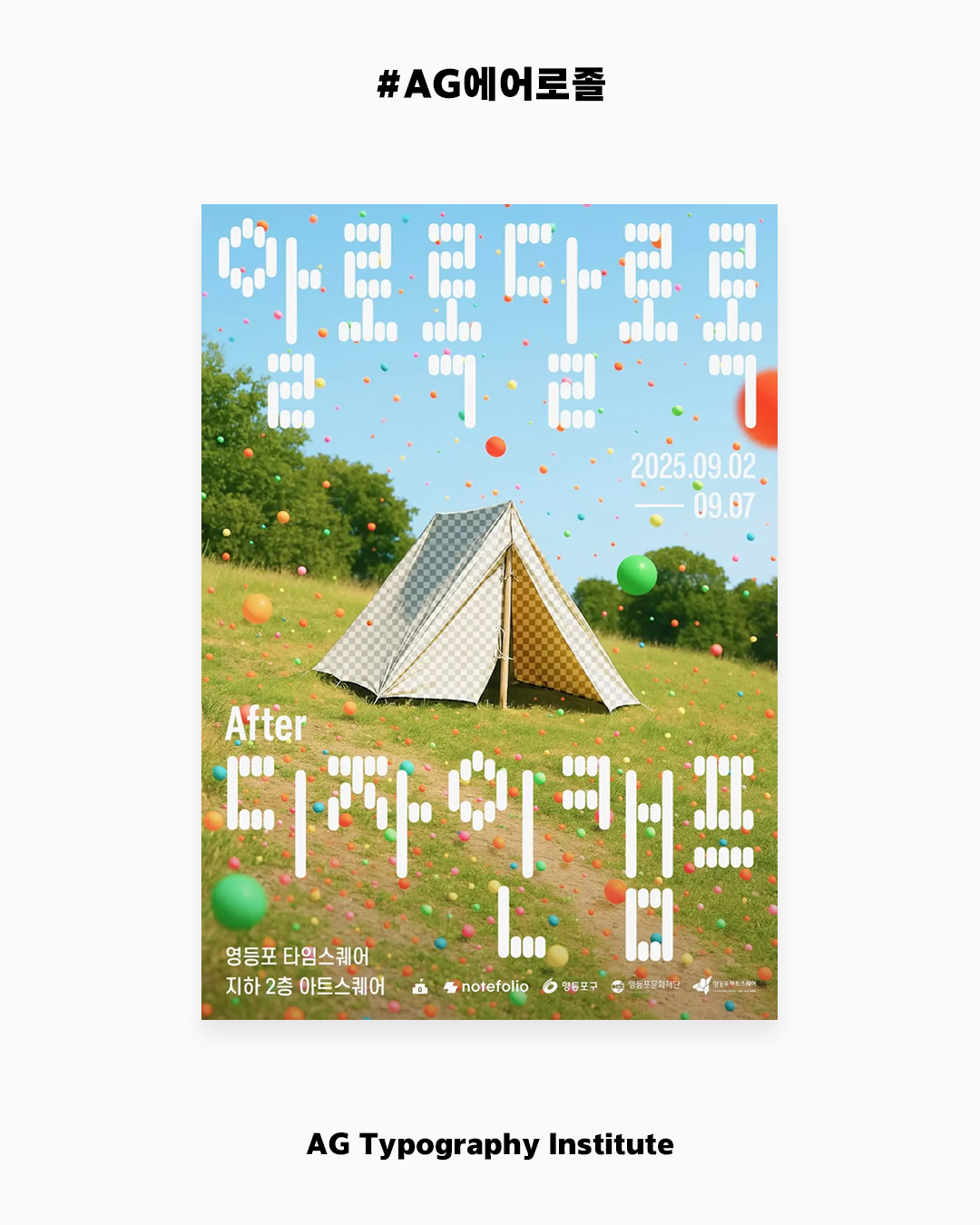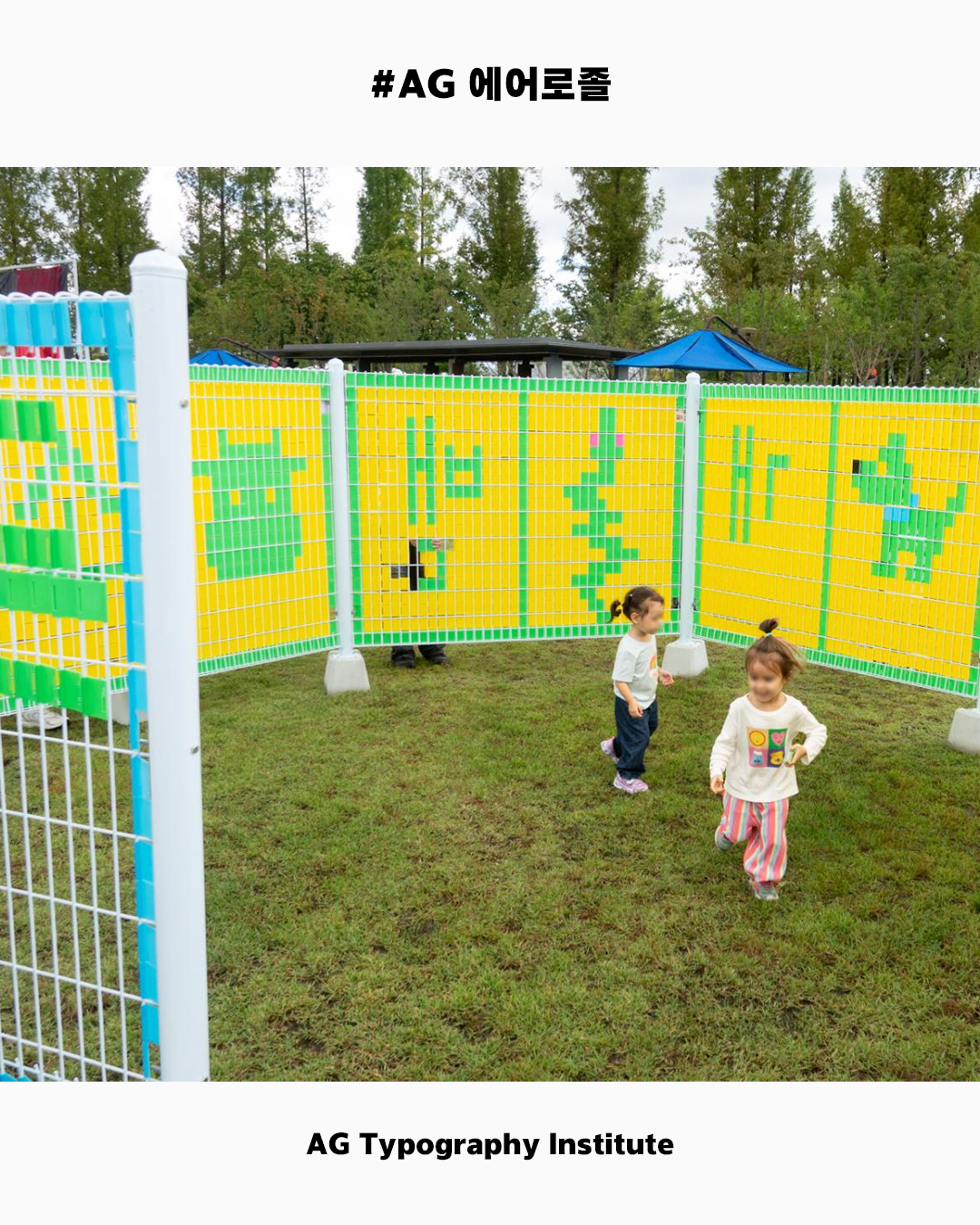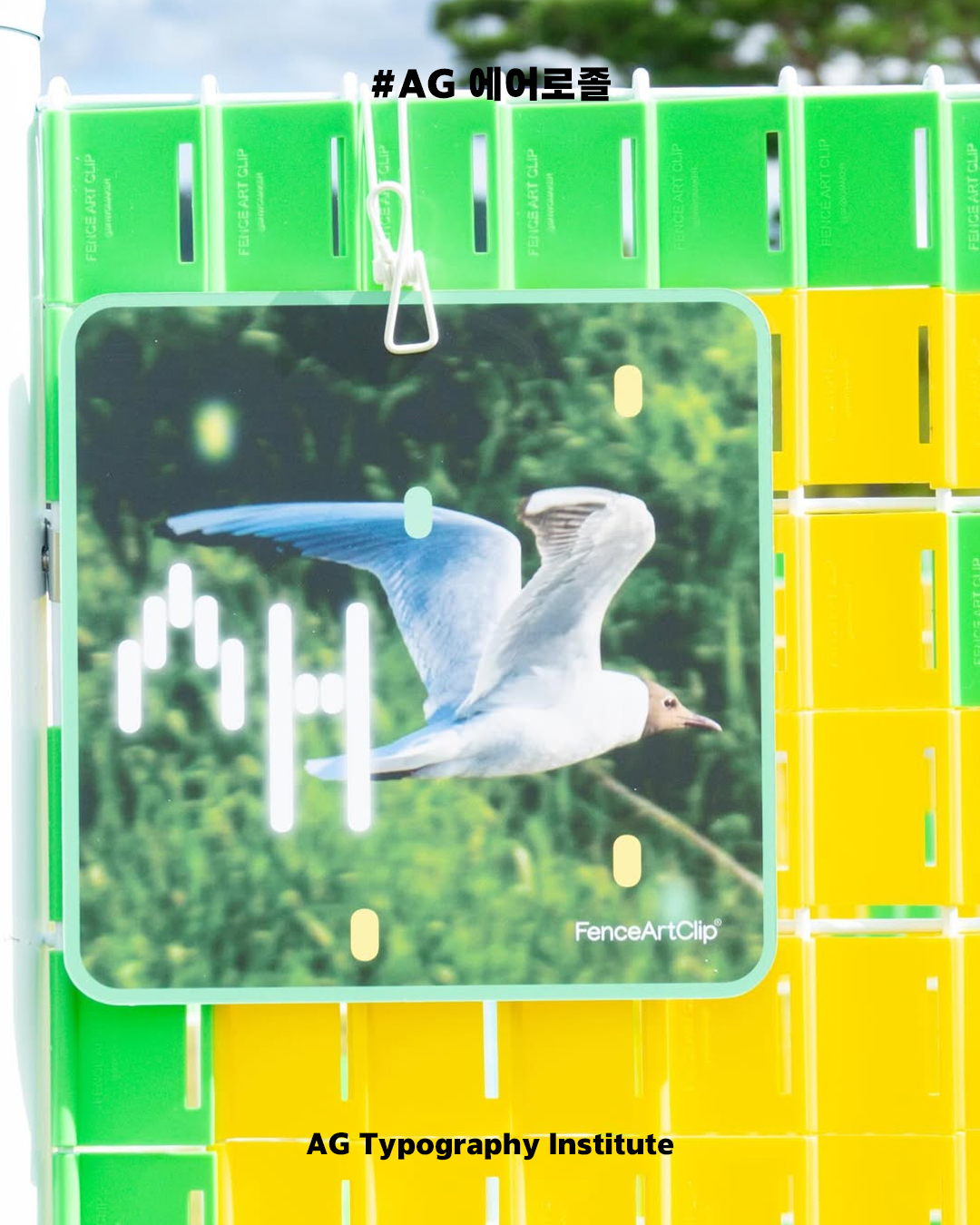
AG Aerosol
AG 에어로졸
Aerosol is a reverse-contrast monospace typeface. While its origins lie in pixel fonts and 1980s spray can branding, the design has evolved significantly over time. Conceived as a playful instrument for designers, it is well-suited for a wide range of creative applications, including posters and book covers.